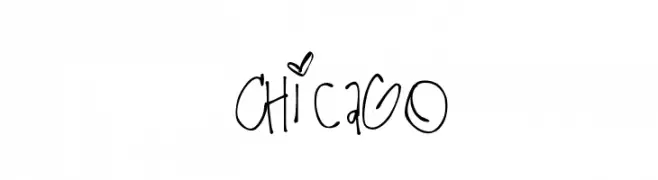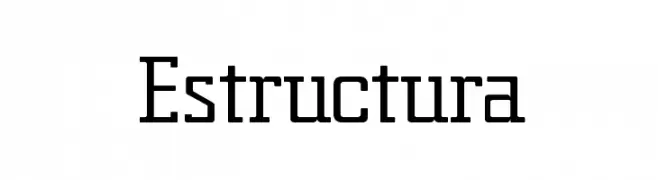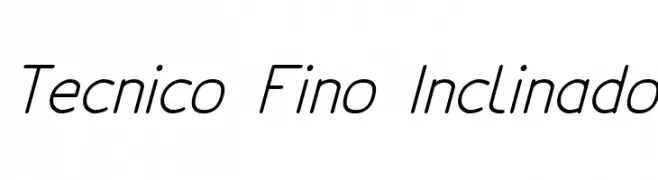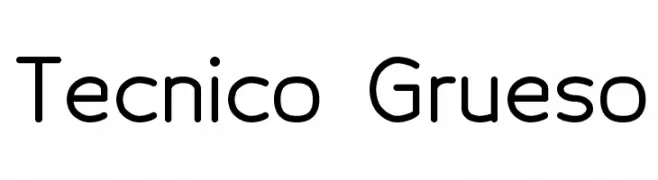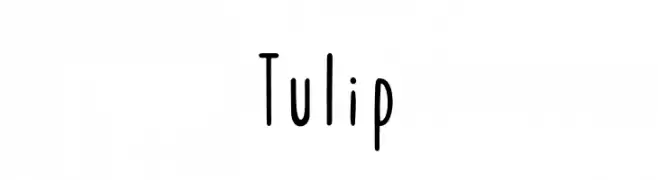
A bold, modern stencil-style font with a futuristic and industrial aesthetic.
A bold, high-contrast italic font with a modern and elegant style.
A geometric and structured font with clean lines and uniform strokes.
A playful, whimsical handwritten font with charming embellishments.
A sleek, modern, and slightly italic font with uniform stroke width.
A playful, handwritten-style font with tall, narrow letters and rounded edges.
A bold, hand-painted font with an artistic and playful style.
A bold, futuristic font with sharp angles and a geometric structure.